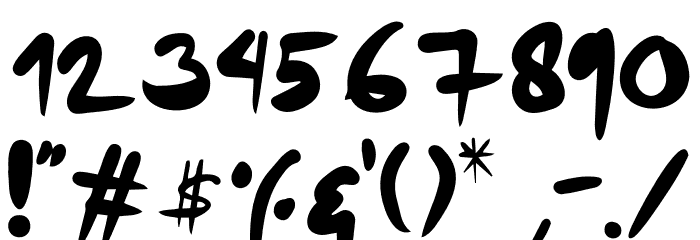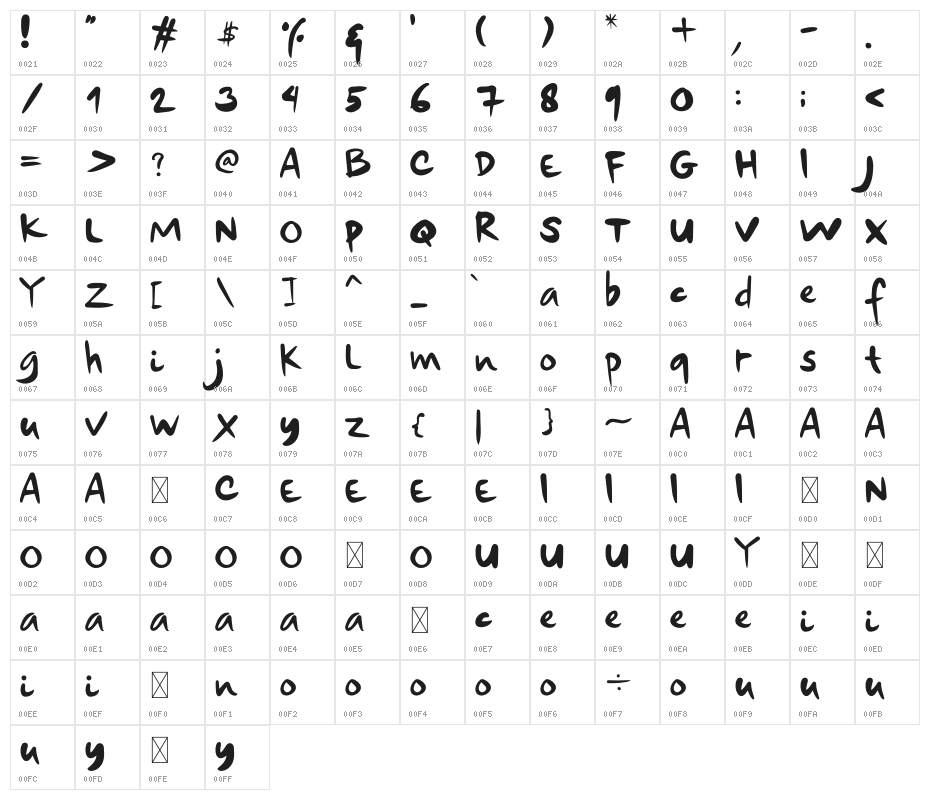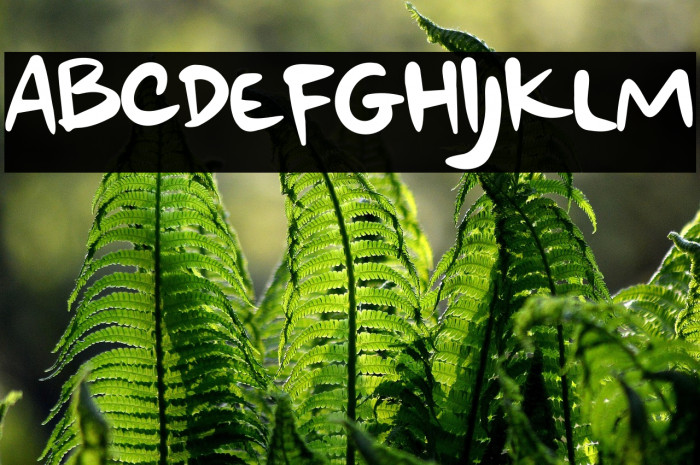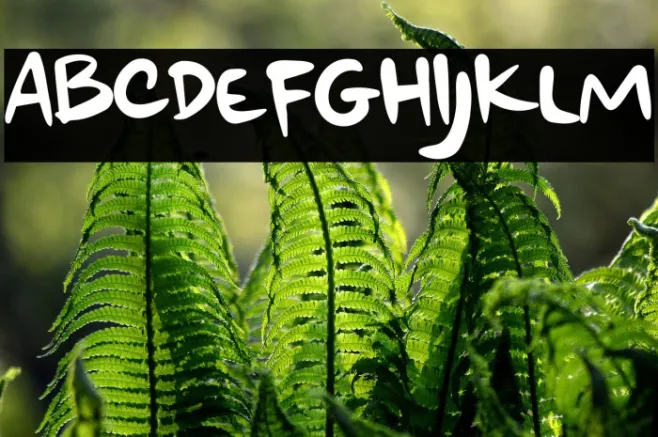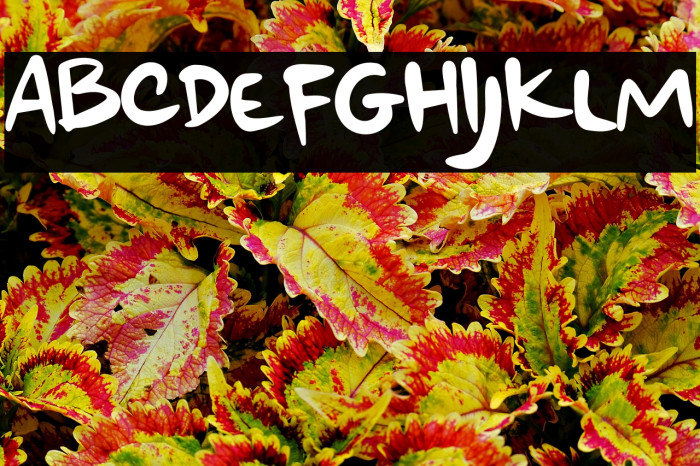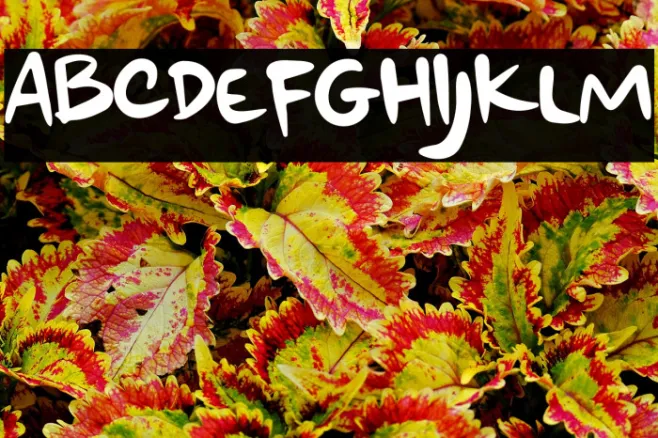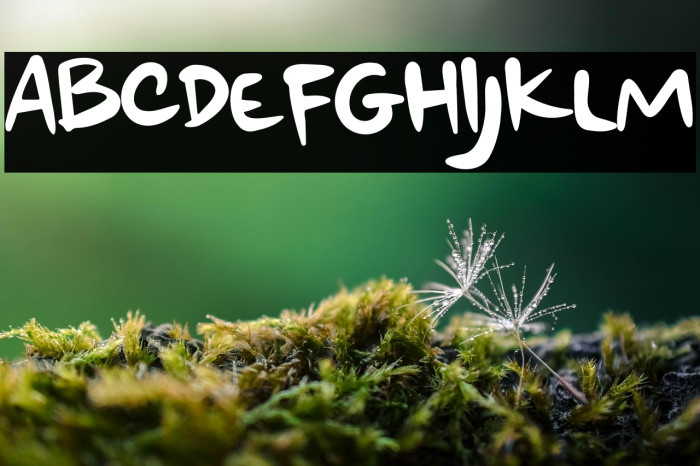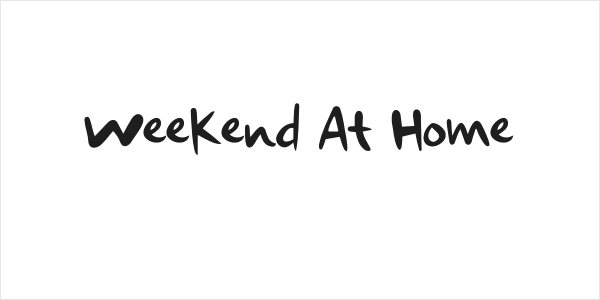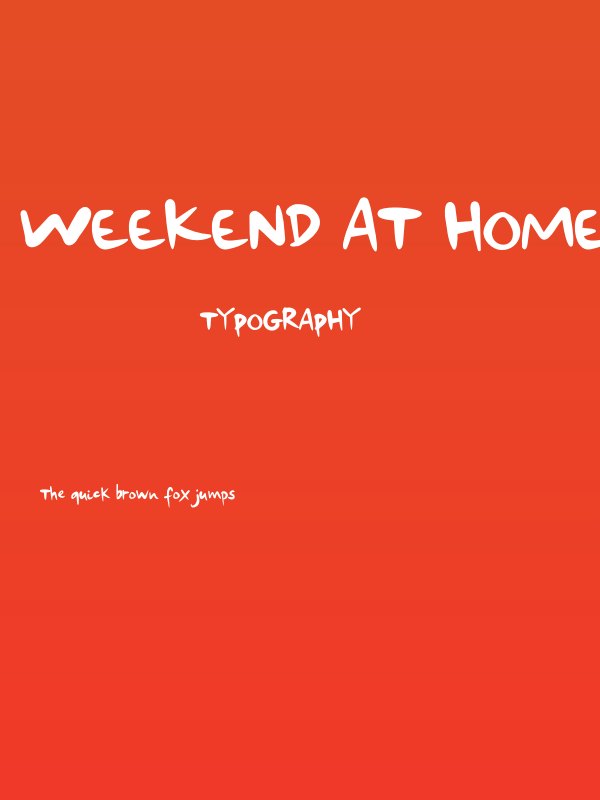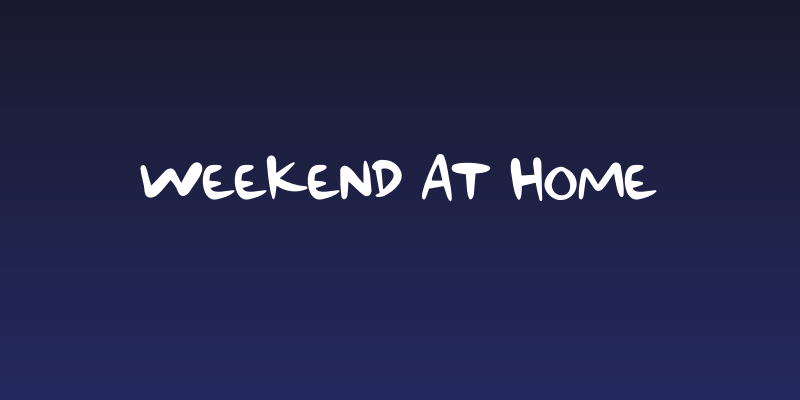
Weekend At Home Font
Weekend At Home Description
This font exudes a playful and casual vibe, characterized by its handwritten style that mimics the natural flow of penmanship. The letters are bold and slightly irregular, giving them a dynamic and lively appearance. The strokes are thick and consistent, providing a sense of uniformity despite the informal style. The uppercase and lowercase letters maintain a cohesive look, with rounded edges and a slight slant that adds to the relaxed feel. Numbers and special characters follow the same design principles, ensuring a harmonious overall appearance. This font is perfect for projects that require a touch of personality and informality.